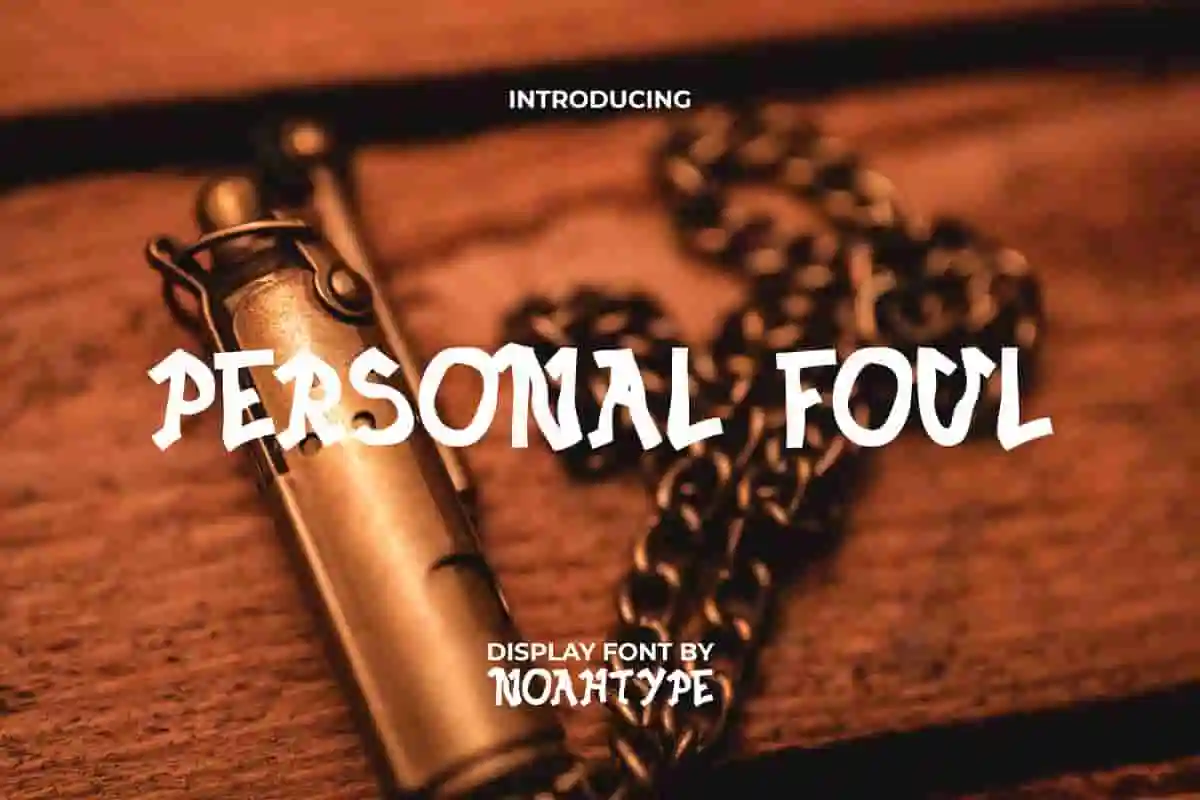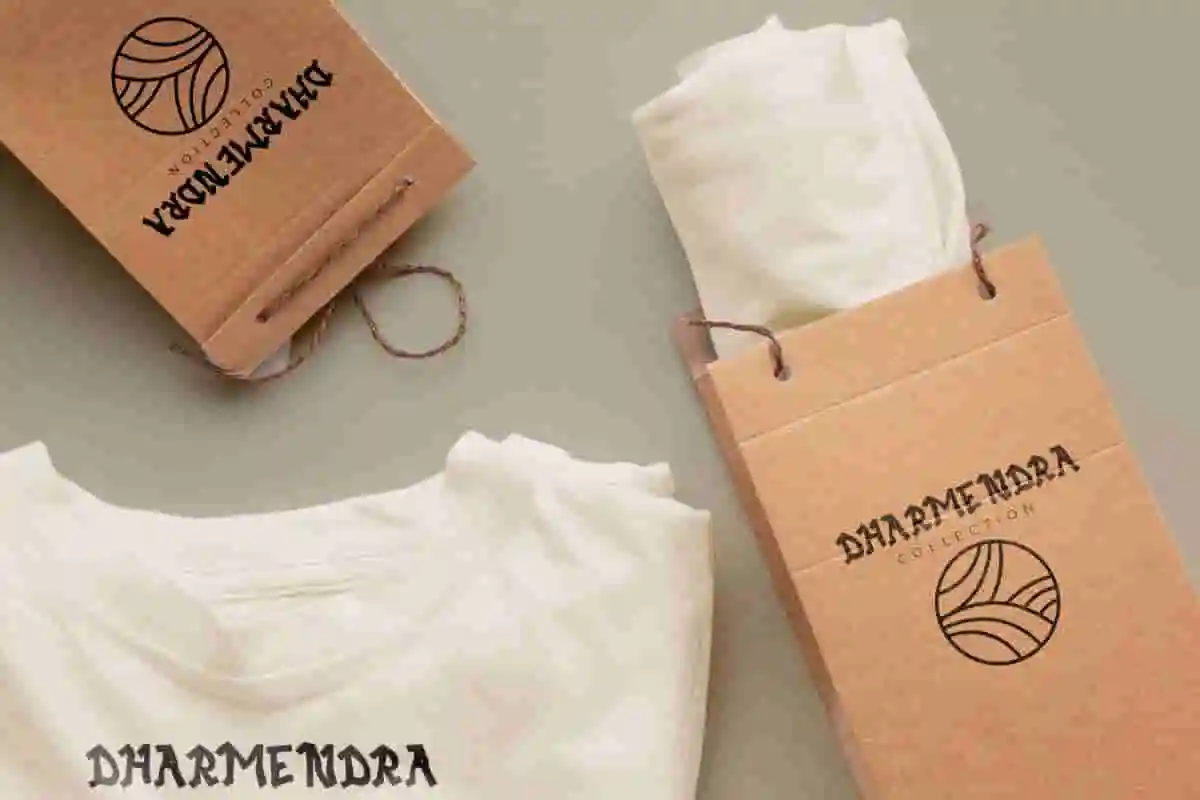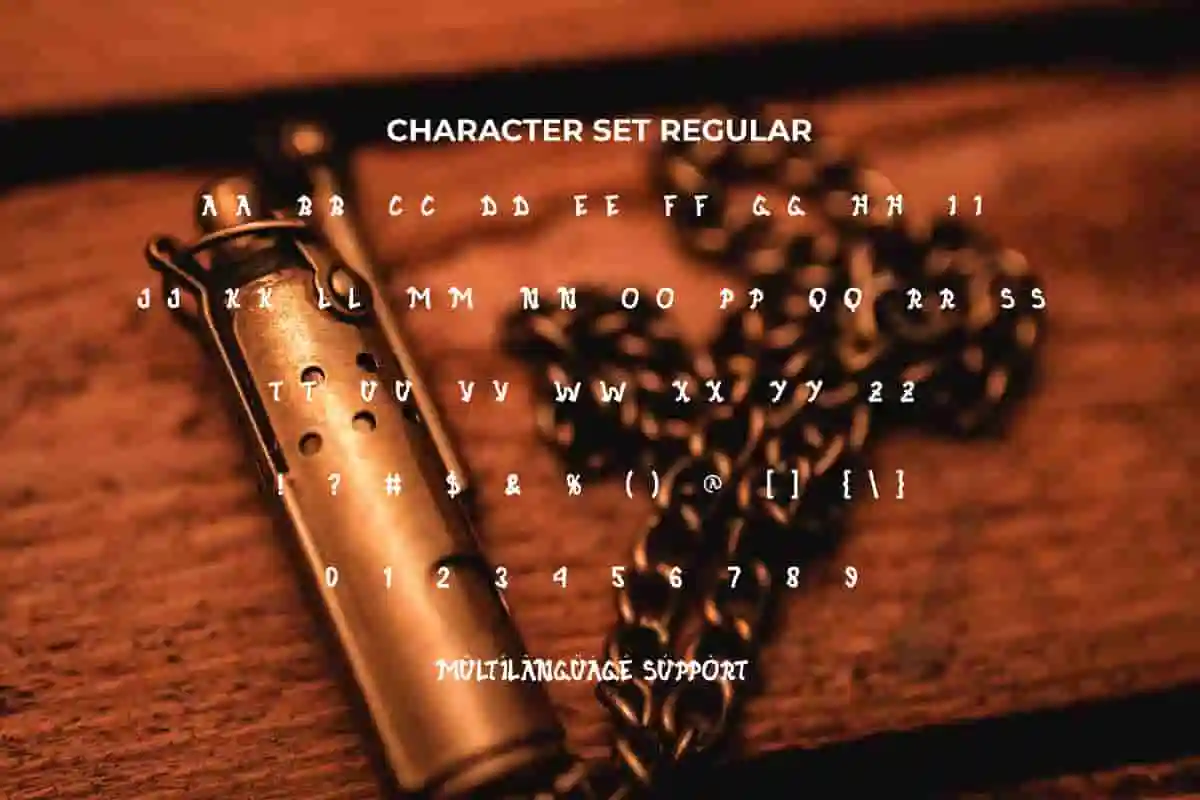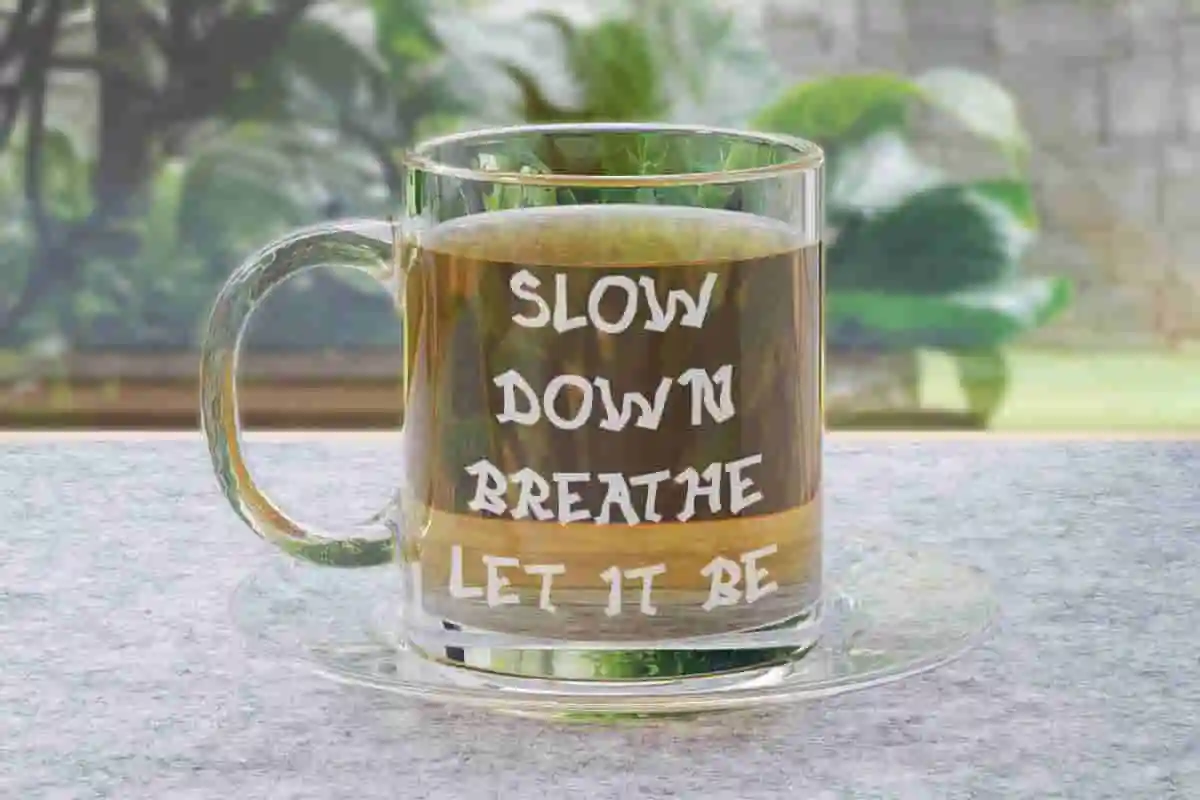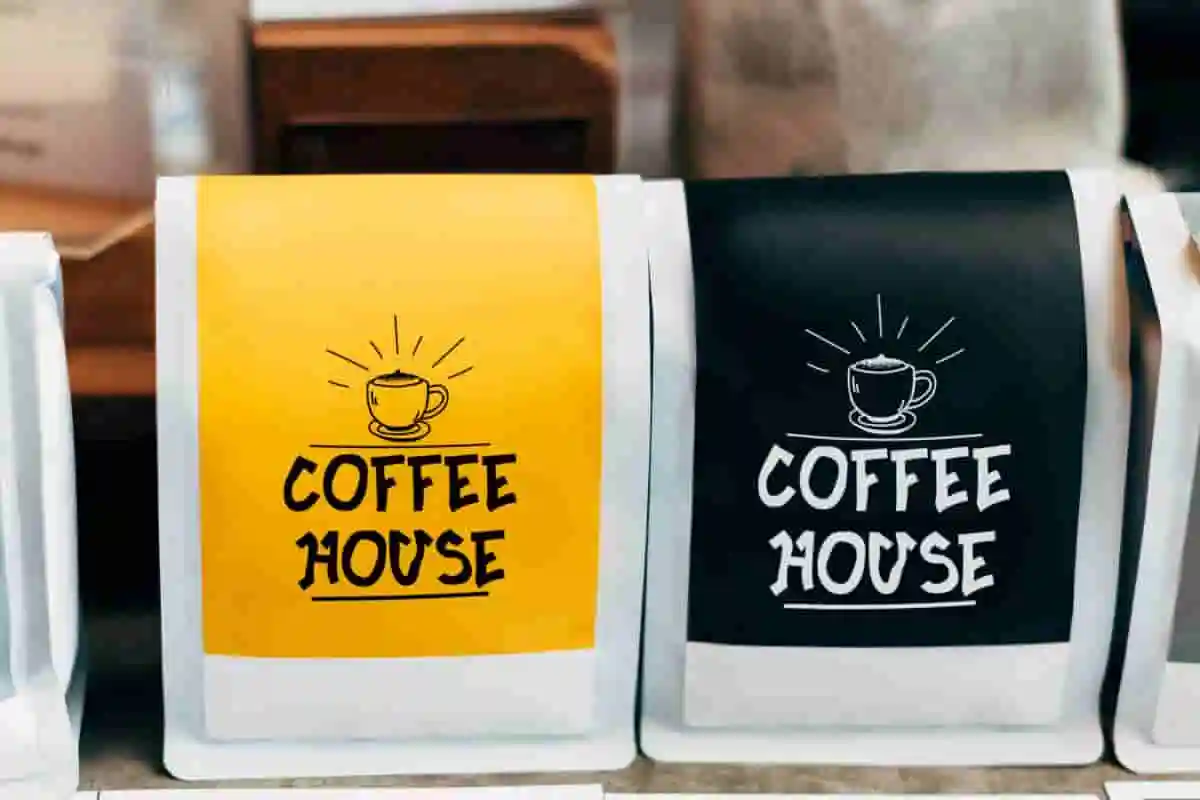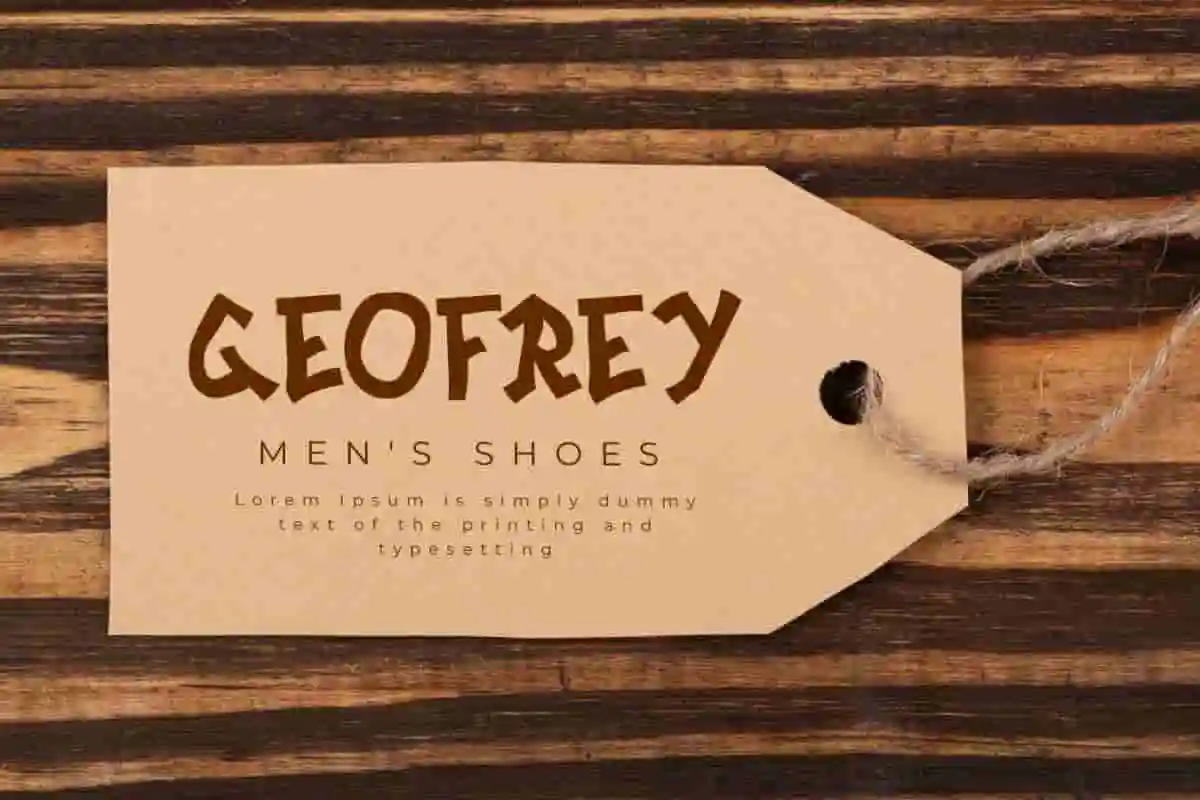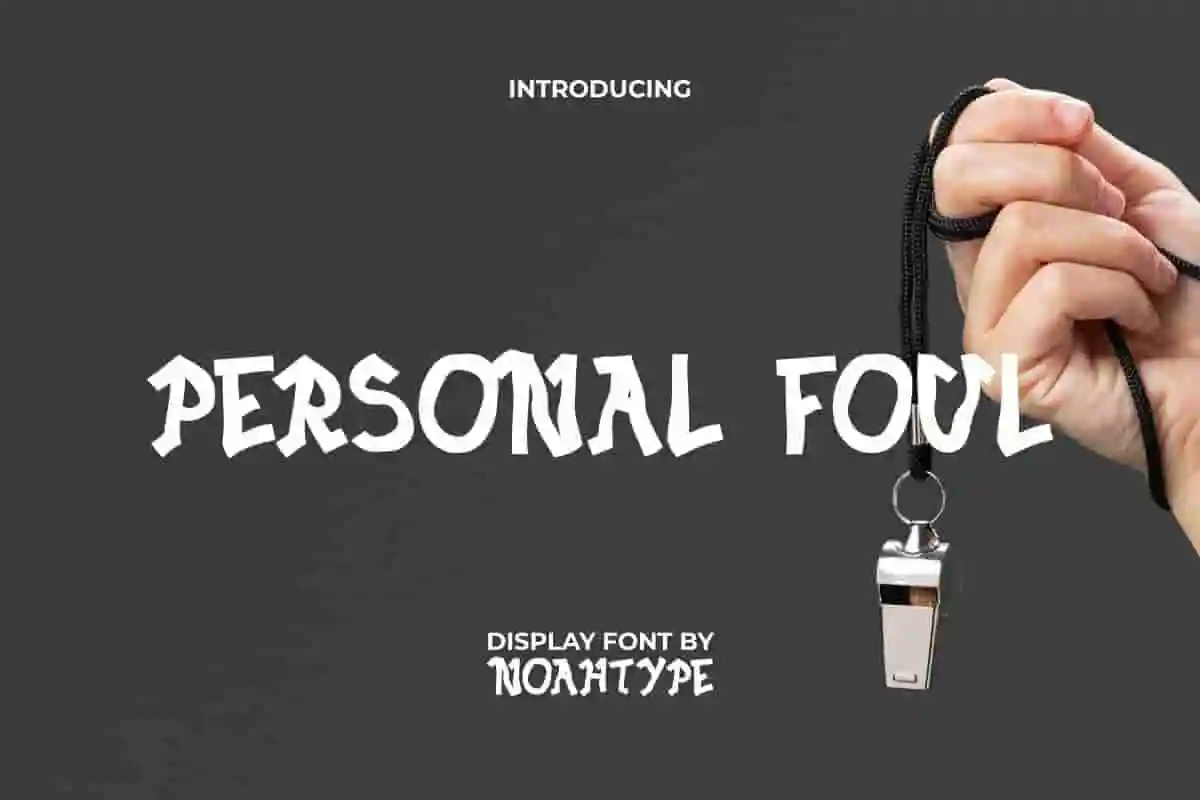
Personal Foul Font is a unique unusual display font by NoahType. This font has a bold and street styles that gives attractive looks. This font will suit many designs, such as brand image, business card, catalog, cover, custom design, invitation, label, menu, poster, quote, signage, stationery, web, and more!
Personal Foul Font includes full set of ALL CAPS for both Uppercase and Lowercase Basic Characters, Numerals and Punctuation. The characters of this font will give cool and stylish appearances and perfect choice for many industries, such as advertisement, café, event organizer, fashion, food and beverage, movie, printing, publishing, sport stuffs, etc.